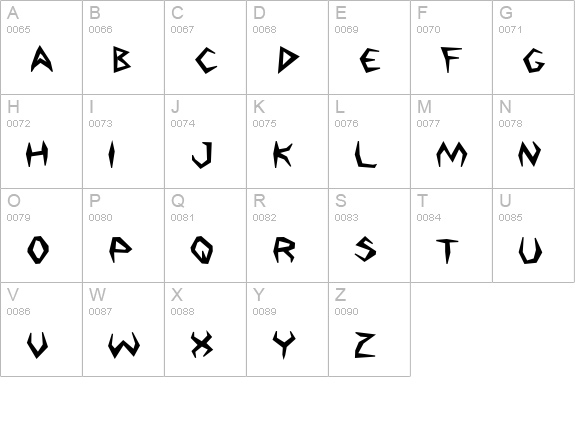
Argosy Bold is a strong, high-contrast variant in the Argosy typeface family \xE2\x80\x94 well suited to headlines, attention-grabbing titles, and strong calls-to-action.
Argosy Bold is a striking and modern typeface that commands attention with its bold and confident design. Its strong and sturdy letterforms make it perfect for headlines, logos, and other display purposes. The font exudes a sense of power and authority while maintaining a touch of sophistication and elegance. What makes Argosy Bold even more appealing is that it is available for free download at FontsMarket.com. This means that you can easily access and use this impressive font in your projects without any cost. With its versatility and eye-catching appearance, Argosy Bold is sure to make a bold statement in any design it is used in.